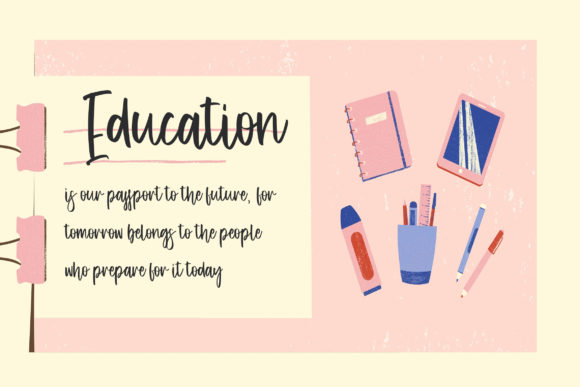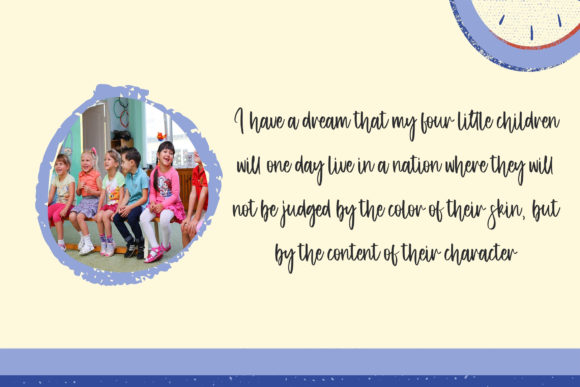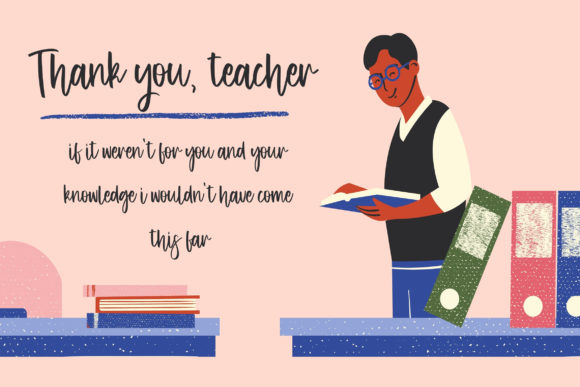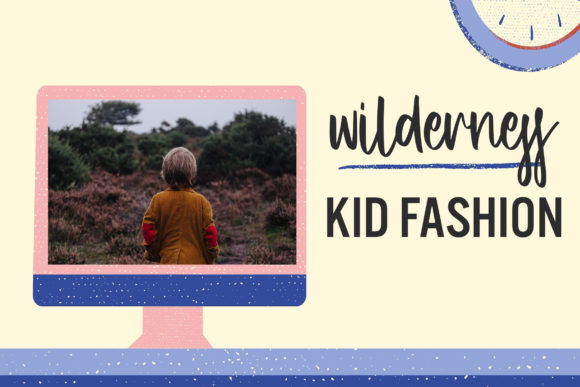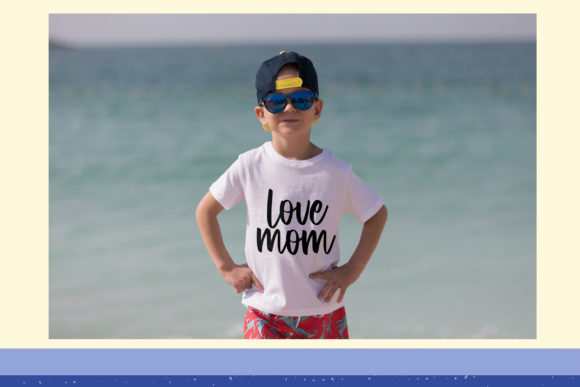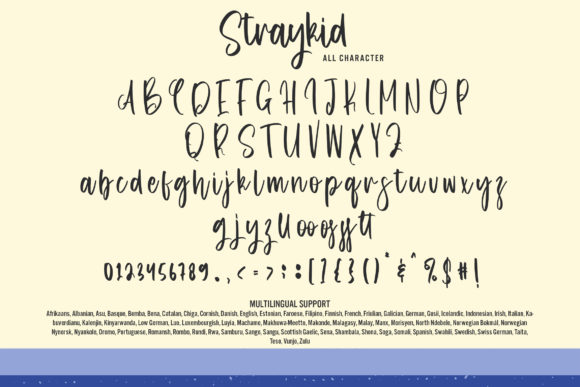
Straykid Font
About Straykid Font
Straykid is a beautiful and stylish script font that adds a touch of elegance and sophistication to any design. With its flowing and expressive letterforms, this font brings a sense of charm and creativity to your projects. No matter the topic or purpose, Straykid is a versatile font that can elevate the visual appeal of any creation.
The unique and eye-catching style of Straykid makes it a standout choice for various design applications. Whether you’re working on branding materials, advertising campaigns, invitations, or social media graphics, this font will make a lasting impression on your audience. Its stylish and elegant appearance adds a touch of professionalism and refinement to your designs.
The carefully crafted letterforms of Straykid create a harmonious balance between curves and lines. Each character is thoughtfully designed to ensure legibility while maintaining a sense of beauty and creativity. The flowing nature of the script adds a sense of movement and liveliness to your text, making it visually engaging and appealing.
Straykid is a versatile font that can adapt to different design styles and themes. Its elegant and stylish look complements both modern and classic designs, adding a touch of sophistication and personality. Whether you’re designing for a fashion brand, a wedding invitation, or a creative project, Straykid will enhance the overall aesthetic and convey a sense of elegance.
By adding Straykid to your font library, you gain a valuable asset that can be used to elevate any creation. Its beautiful and stylish design makes it a versatile choice for various design projects. Whether you’re aiming for a luxurious and refined look or a playful and artistic vibe, Straykid will meet your design needs.
In summary, Straykid is a beautiful and stylish script font that adds elegance and sophistication to your designs. Its flowing letterforms and unique style make it a standout choice for any project. With its versatility and potential to elevate any creation, Straykid is a valuable addition to your fonts’ library.